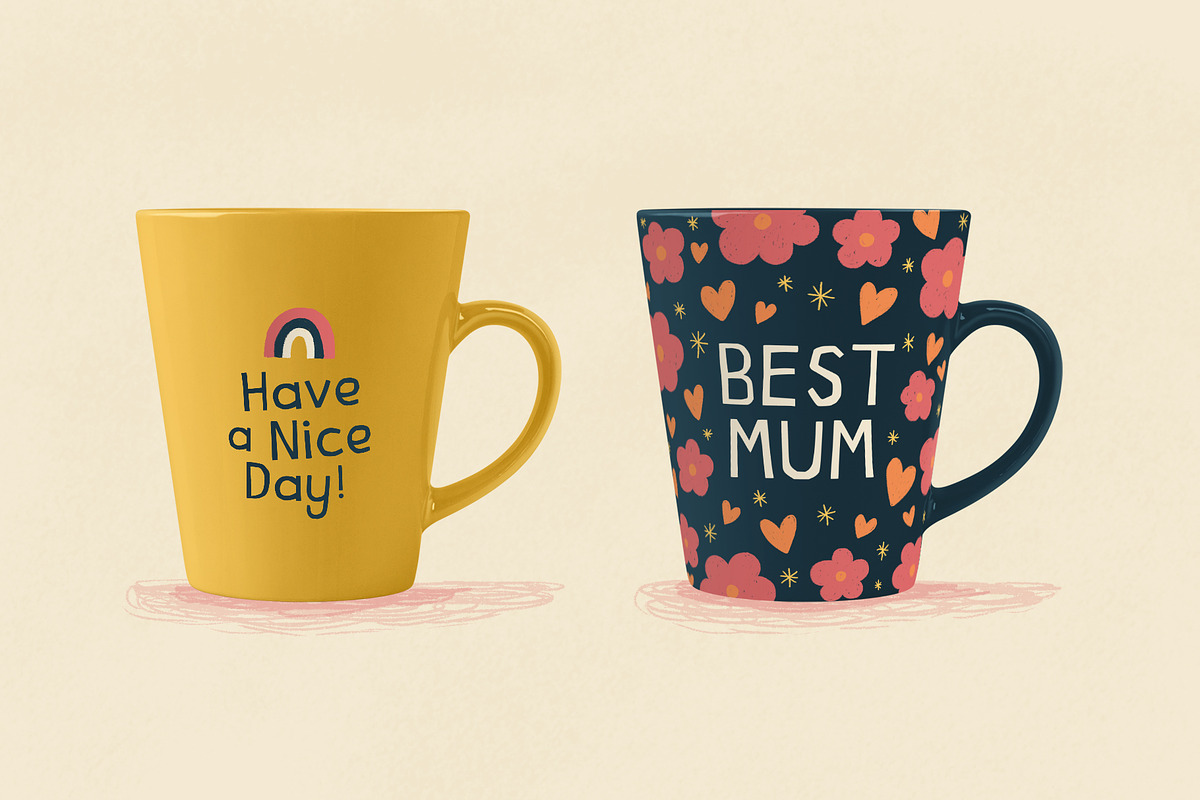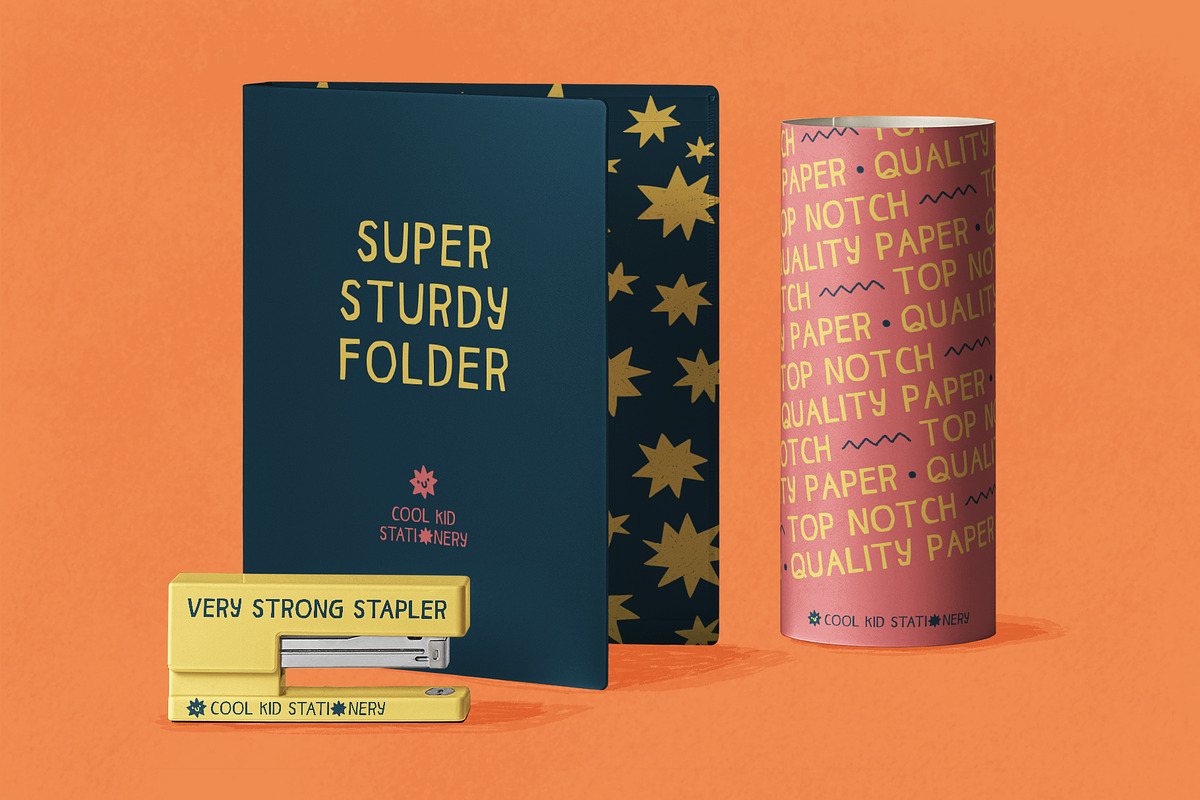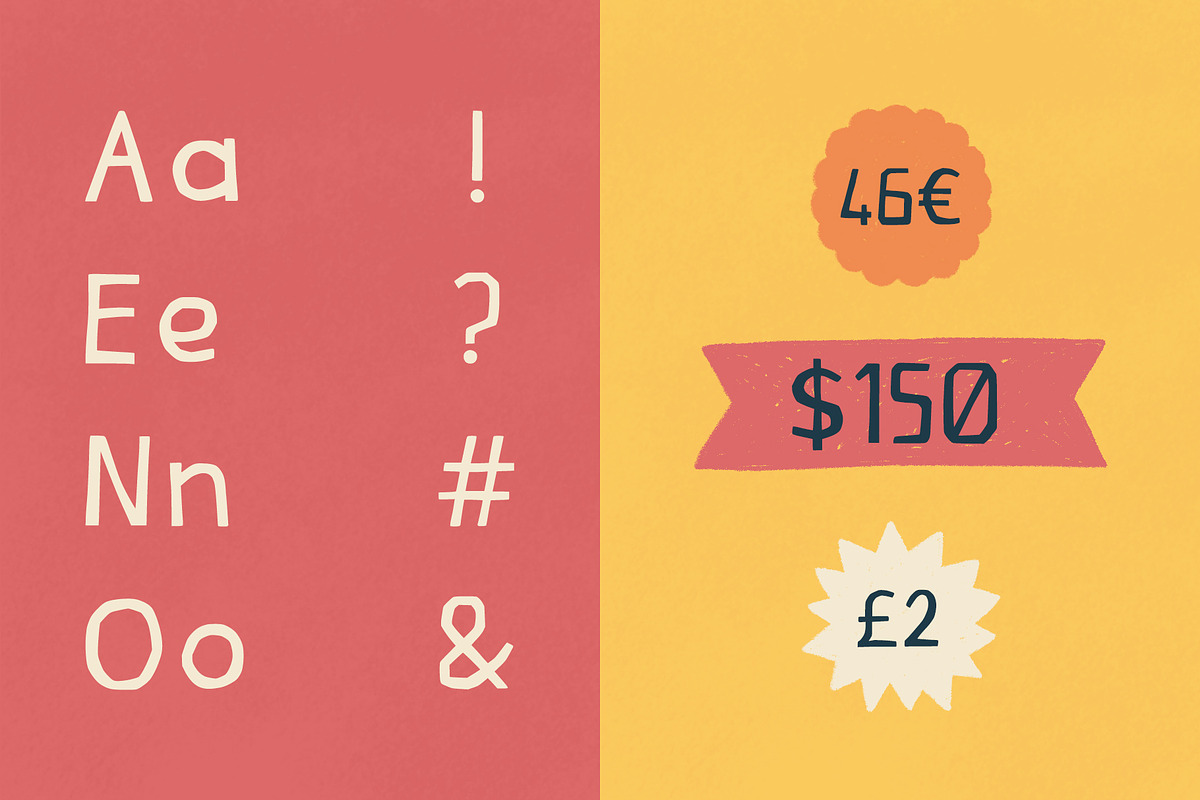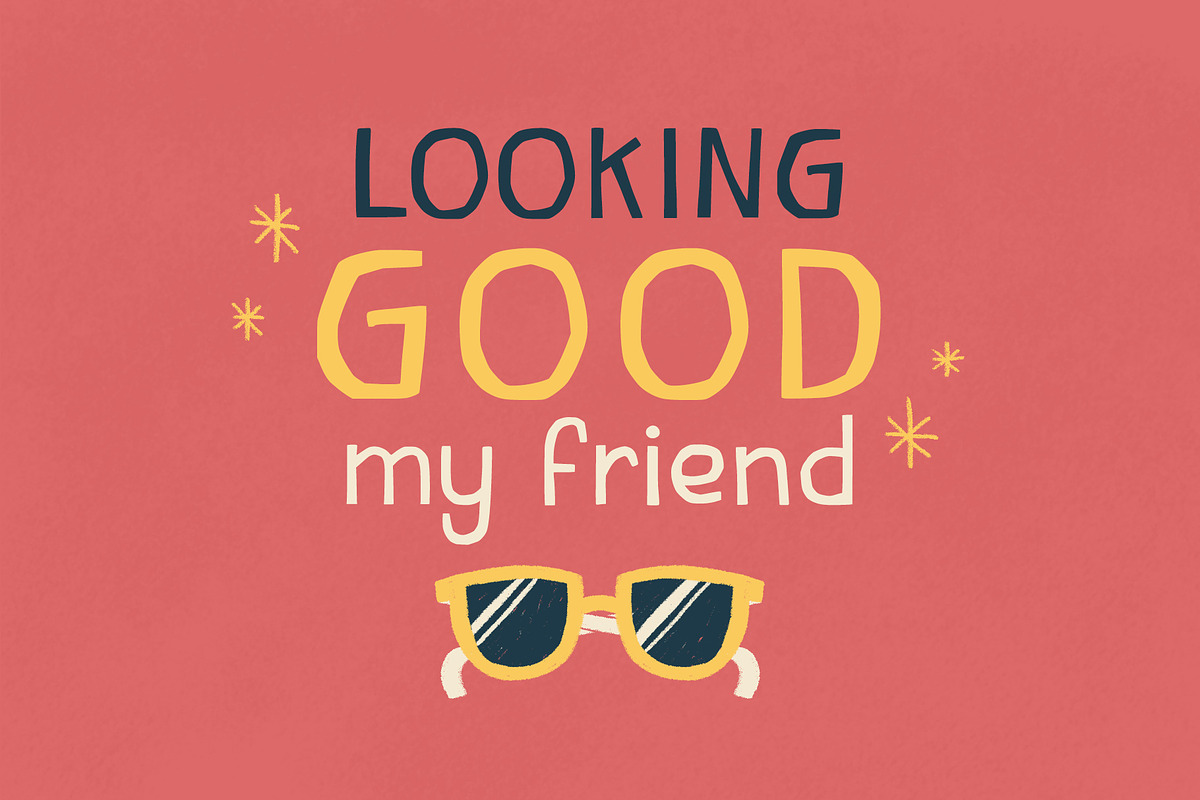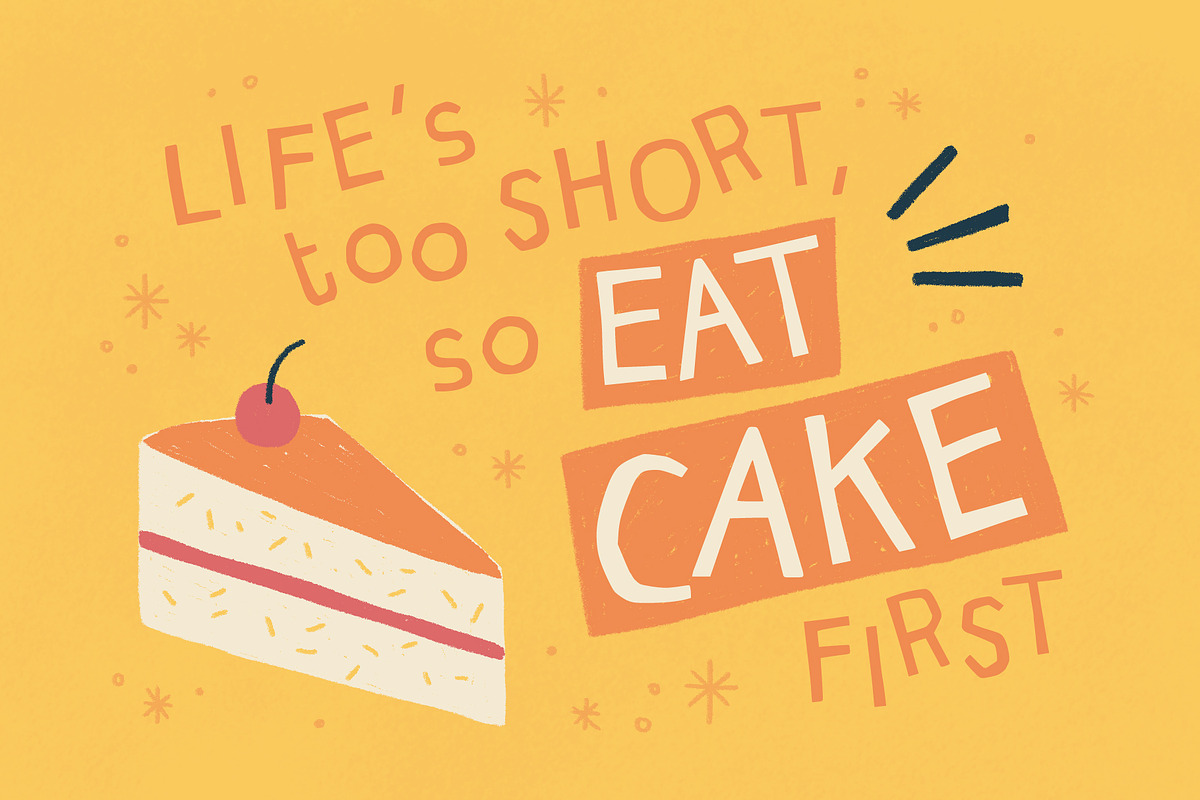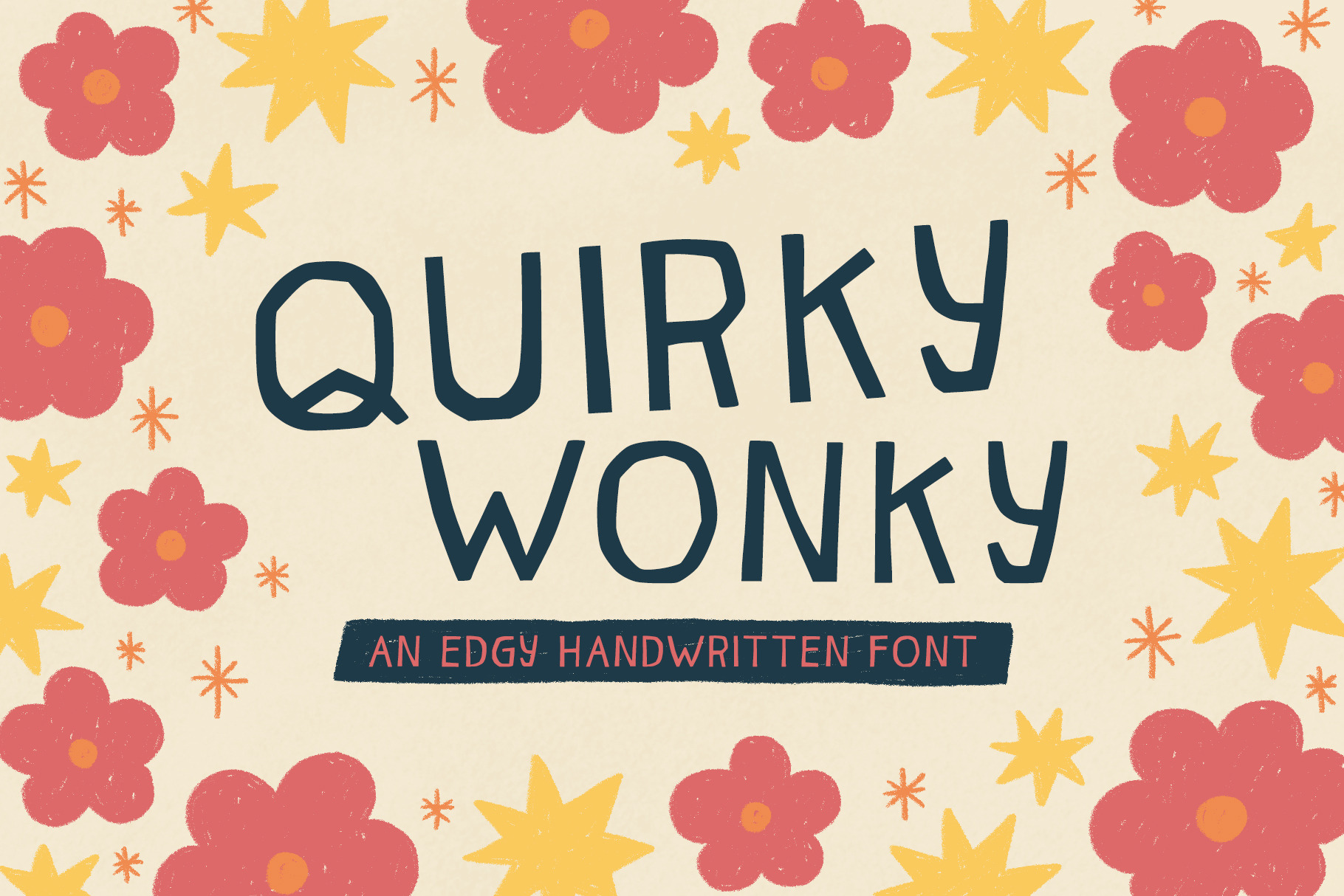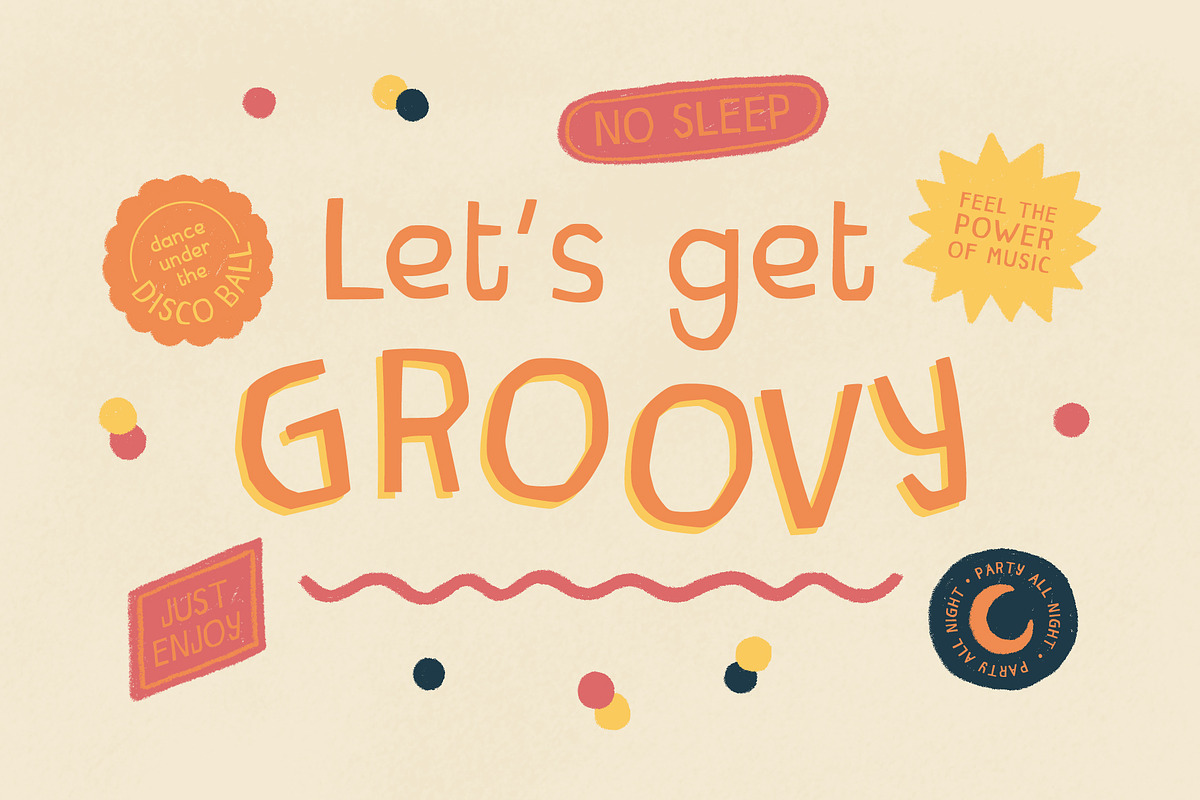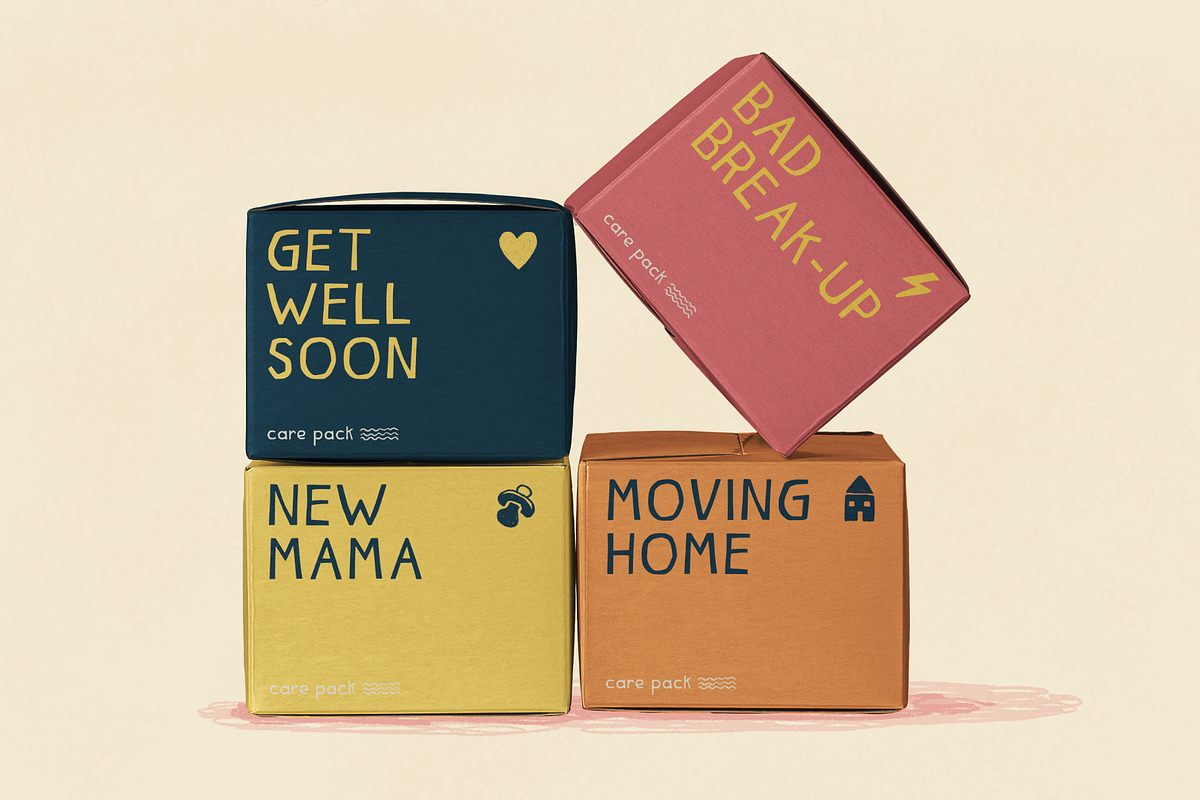
Quirky Wonky - Handwritten font
Add a touch of quirkiness and fun to your designs and make your typography pop! The Quirky Wonky font is a playful handwritten font with a strong uneven style that can be used for English, French, German, Italian and Spanish (or any other language that uses the same latin characters). You'll find a total of 226 characters and glyphs, including accents, punctuation, numbers, etc. Have fun!